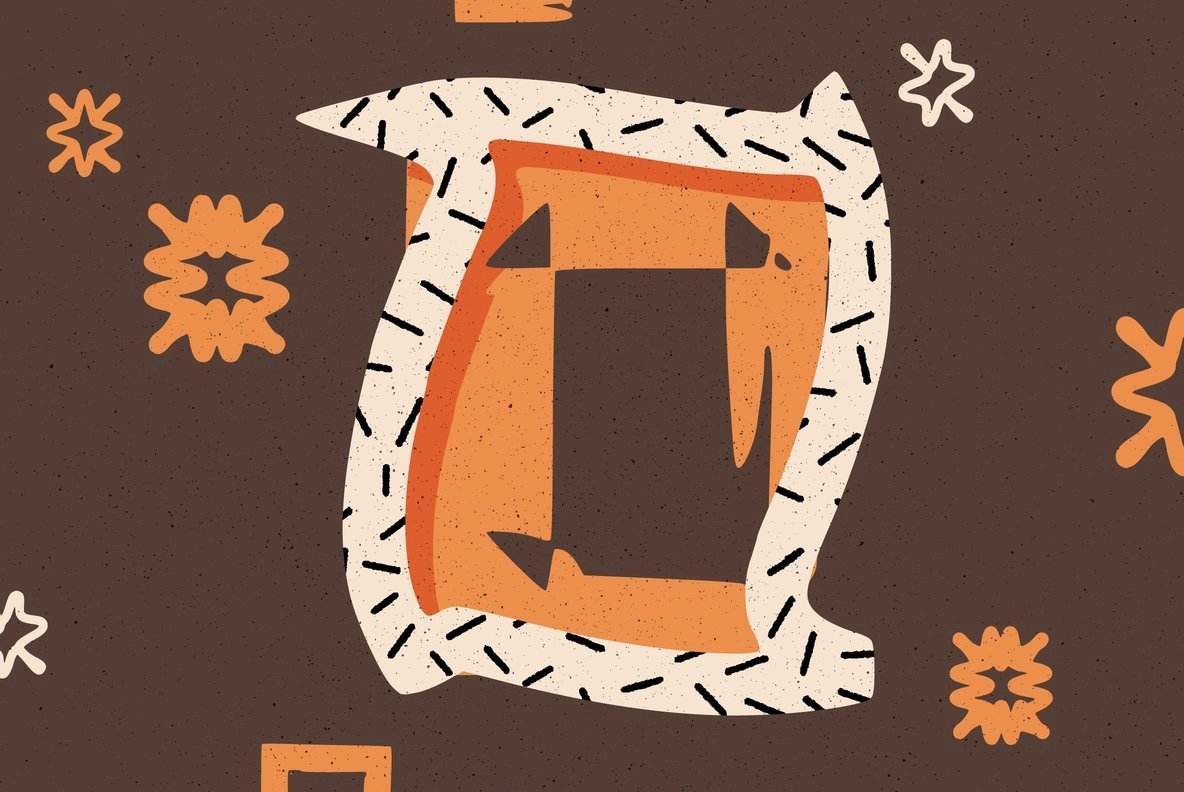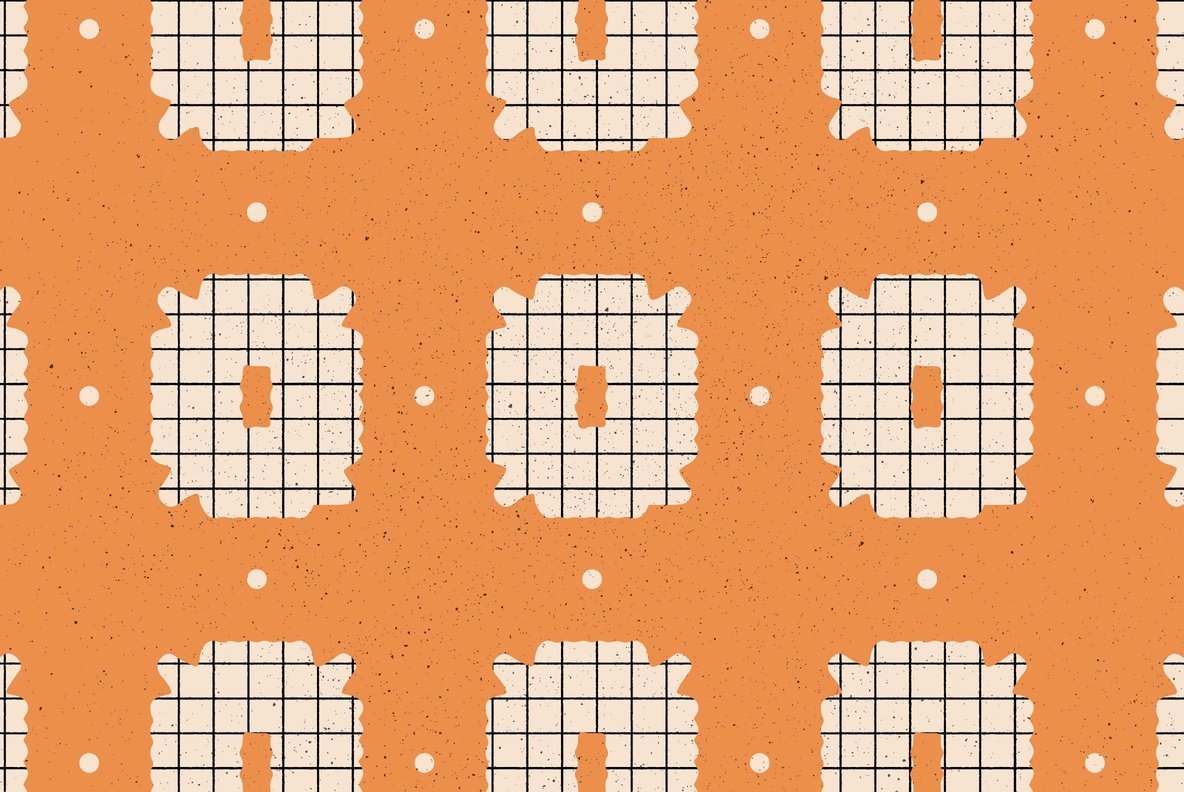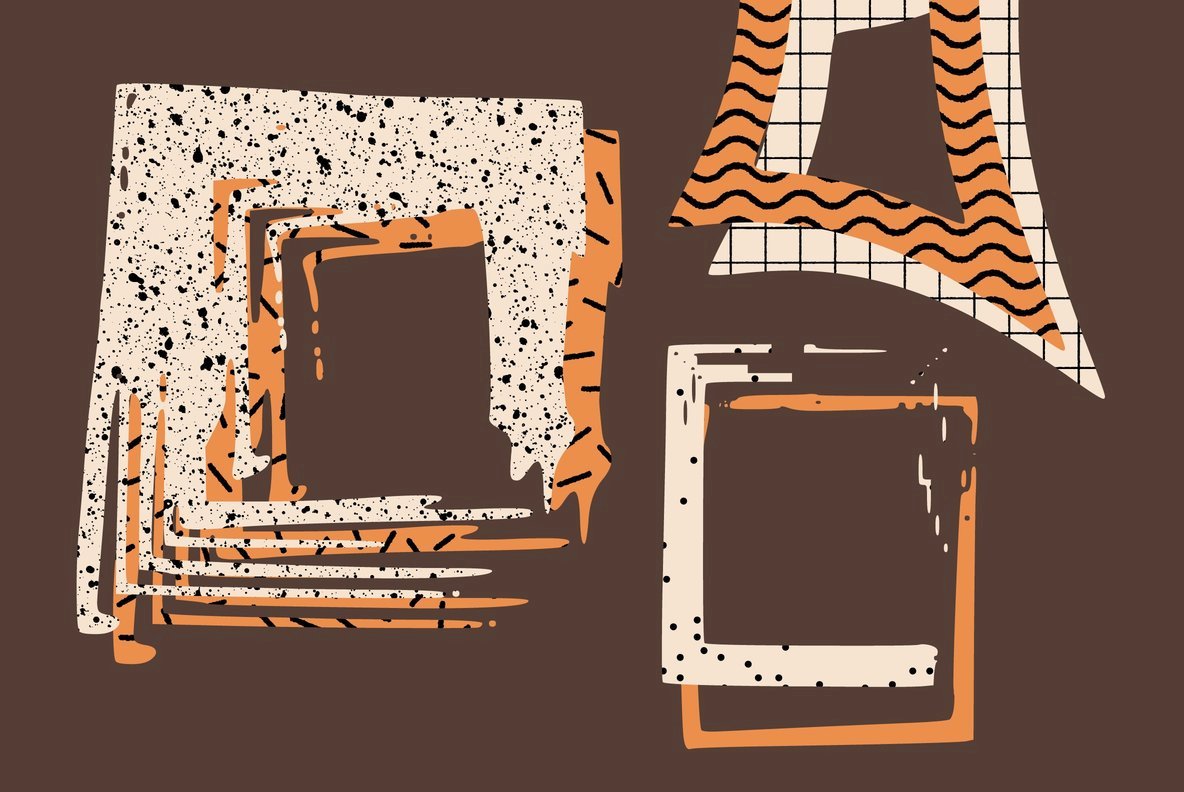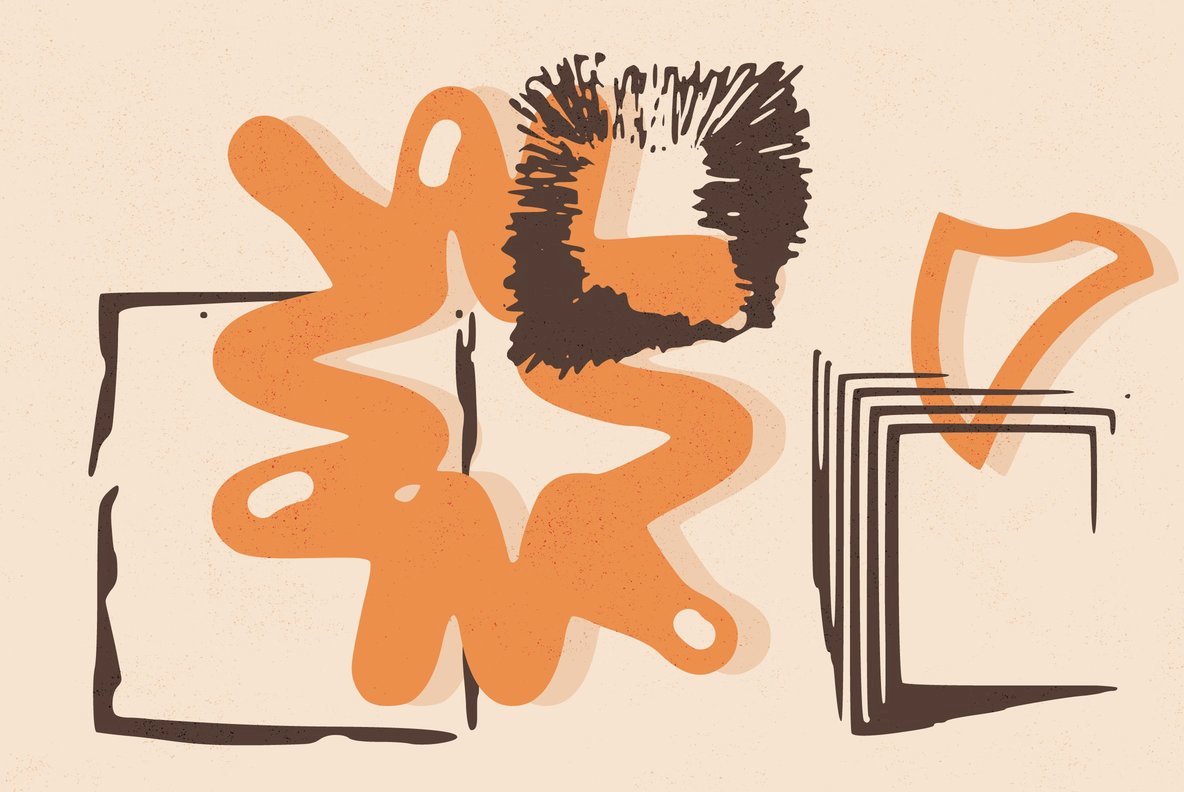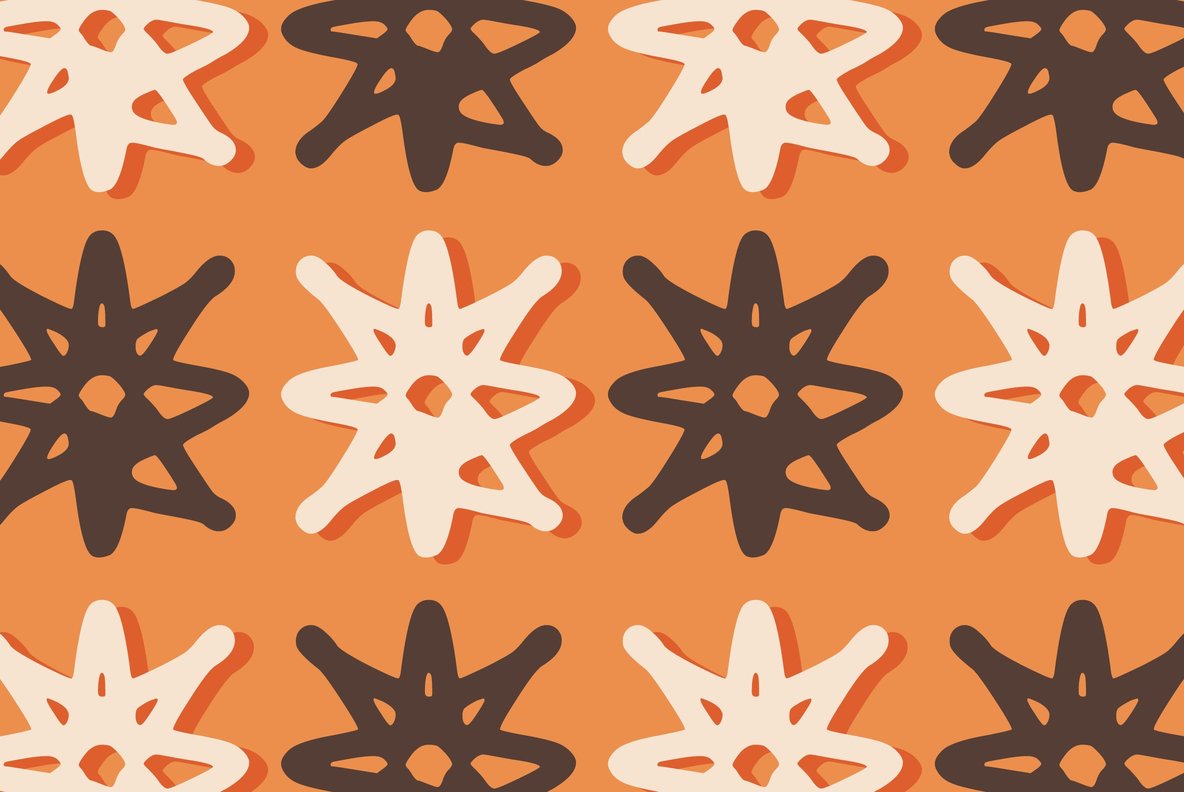
Grunge Frames Font
Grunge Frames
If your looking for a load of frames and shapes in wacky and cool designs then here is a cool set for you! Use them to highlight, frame and add extra features to your designs. Loads of bursts, frames , shapes that have a rather strange and psychedelic feel to them. Grunge Frames and Geometric shapes to inspire your art, crafts and designs.
This font was created by Benjamin A Melville and features a full upper and lower case alphabet including 0-9 and some punctuation, please see glyphs list for all characters you will be able to work with.